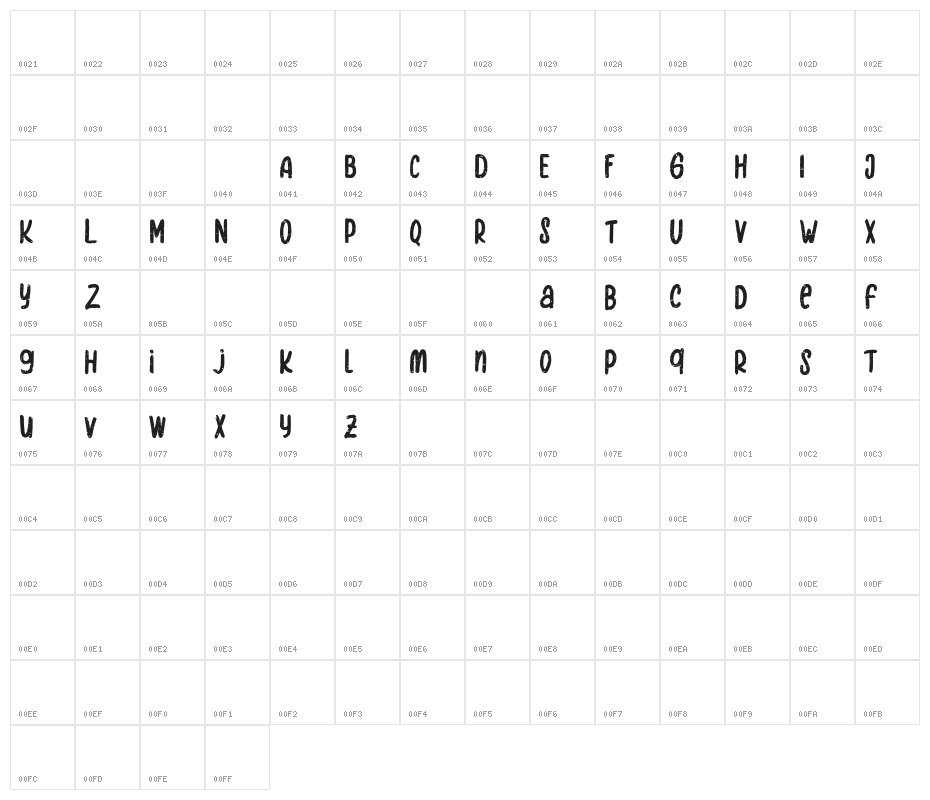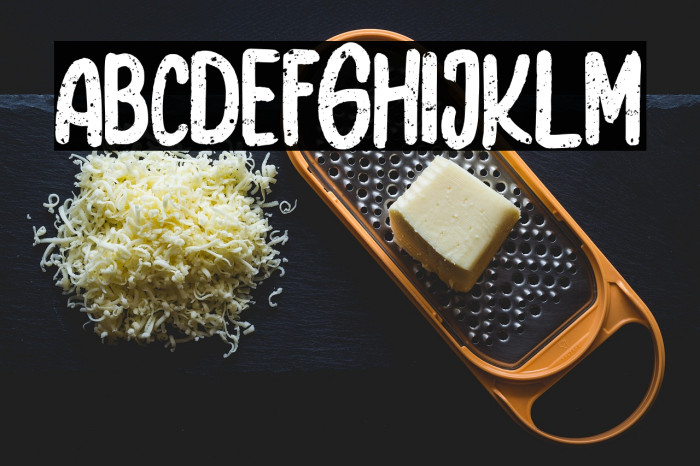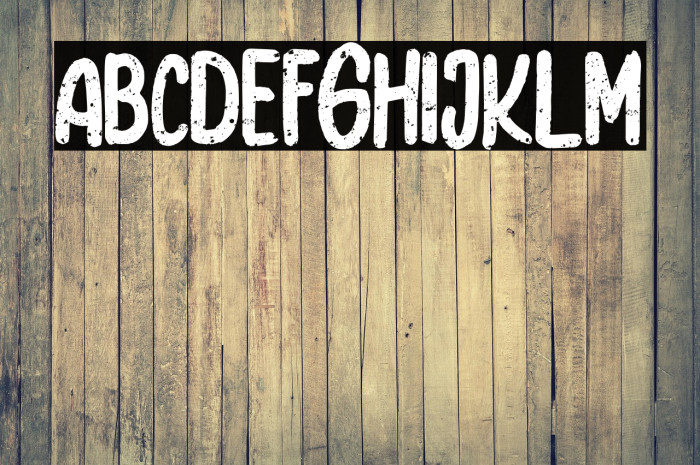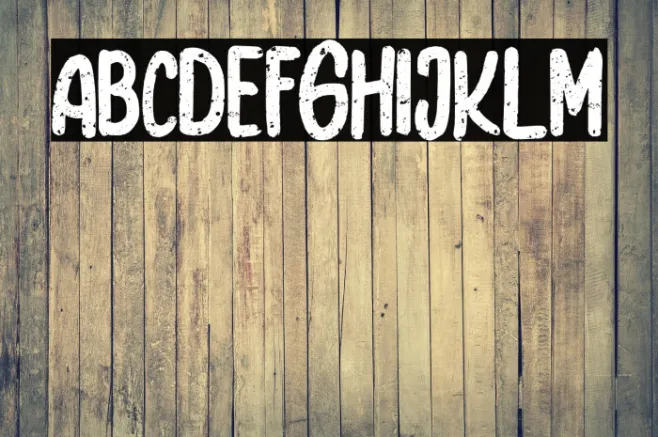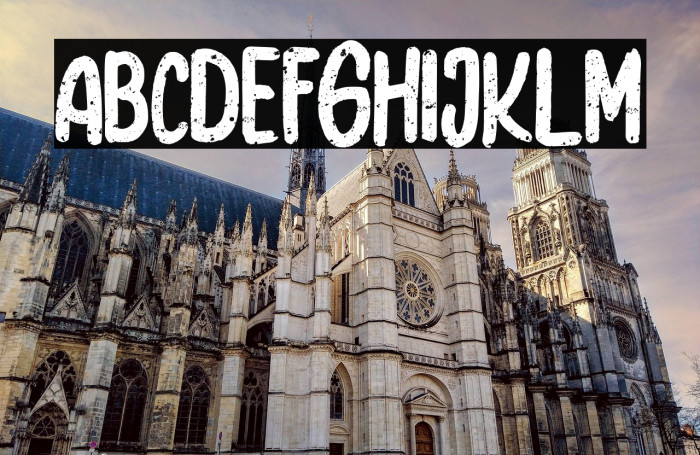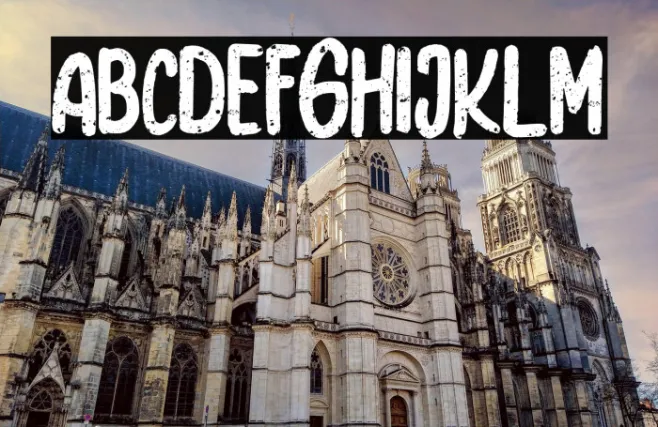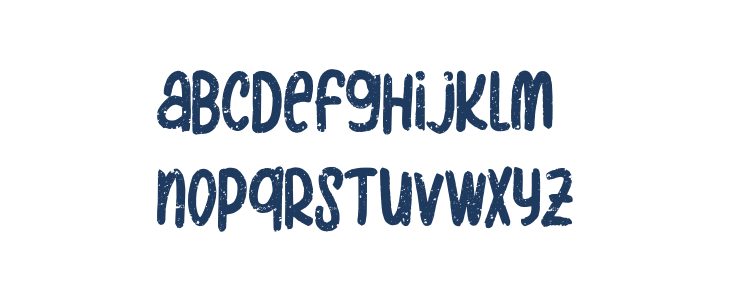
FarobeFREE Font
FarobeFREE Description
This font features a bold, playful style with a distressed texture that gives it a vintage and handcrafted appearance. The characters are rounded and slightly irregular, adding a whimsical and informal touch. The uppercase and lowercase letters maintain a consistent width, creating a cohesive look across the alphabet. The numbers and special characters follow the same design, ensuring uniformity. The texture within each character adds depth and interest, making it suitable for designs that require a rustic or artistic flair.
Overall StyleVintage
Proposed ProjectsIdeal for posters, branding, packaging, and any project needing a rustic or artistic touch.